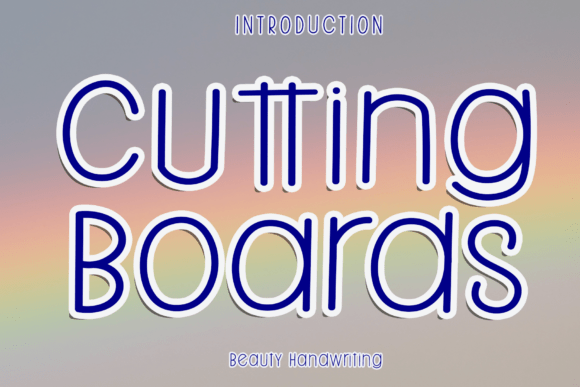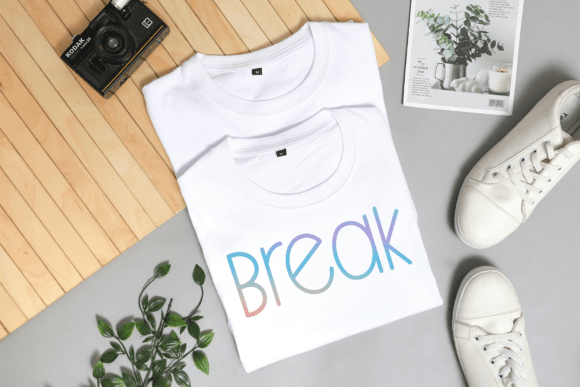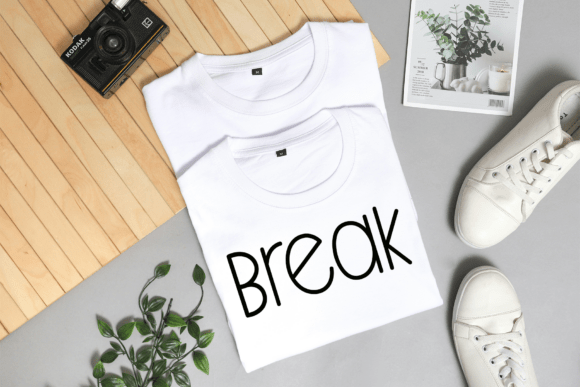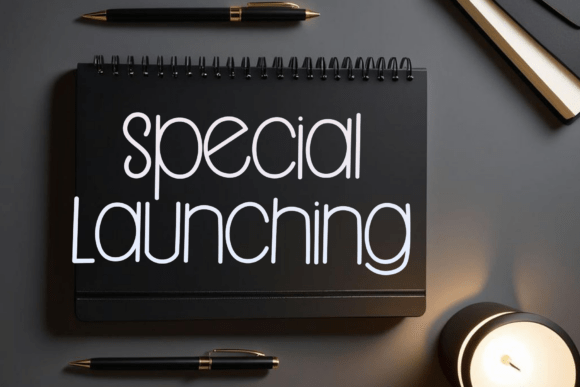
Cutting Boards Font: A Modern Sans Serif for Cricut & DIY Projects
About the Cutting Boards Font
The Cutting Boards Font is here to transform your projects with its distinctive character and style. Cutting Boards is a minimal and neat sans serif font. It can easily be matched to an incredibly large set of projects, so add it to your creative ideas and notice how it makes them stand out!
Its clean lines and geometric structure make Cutting Boards ideal for headlines, logos, and short-form text in branding projects, posters, and packaging design. The font’s minimalist nature lends itself well to a modern aesthetic. However, its limited character set and lack of stylistic alternates make it unsuitable for large blocks of body text or user interface elements.
Cutting Boards projects a confident, modern, and slightly austere personality. To soften its starkness and add warmth, pair it with a rounded sans-serif like Lato or a friendly serif like Playfair Display. For a more contemporary and bold look, consider pairing it with a geometric sans-serif such as Montserrat.
Avoid pairing it with highly decorative or script fonts, as this would clash with its minimalist character. The key is to choose a contrasting yet complementary typeface that enhances, rather than overwhelms, Cutting Boards’ clean aesthetic.
Cutting Boards Font Usage Examples
Cutting Boards Font Example